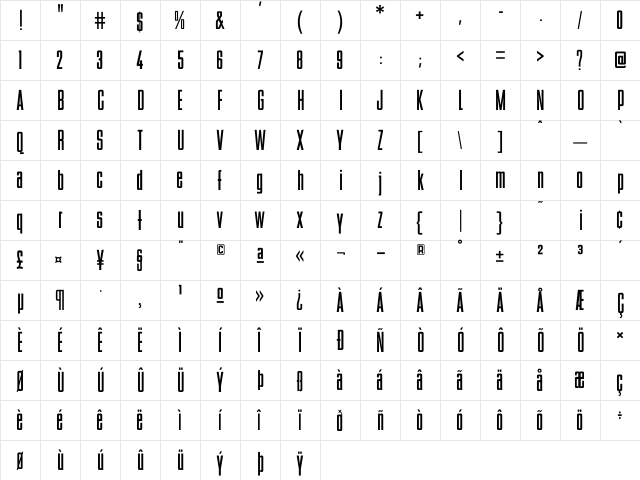
BStyle Bold
Design Context for BStyle Typeface
BStyle is a composed and adaptable typeface that performs quietly and consistently across a wide range of design contexts. Its bold stroke weight gives it real presence on the page.
Pro Tip: Pair BStyle with a font of contrasting weight or personality to build a more expressive typographic hierarchy.